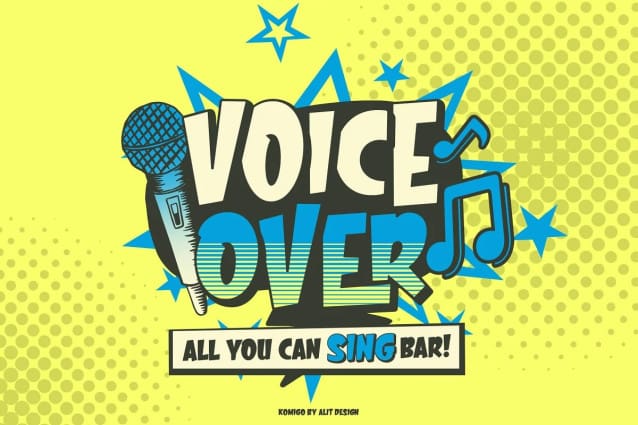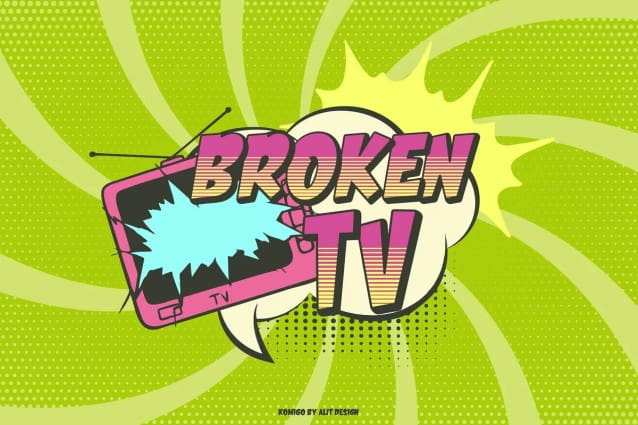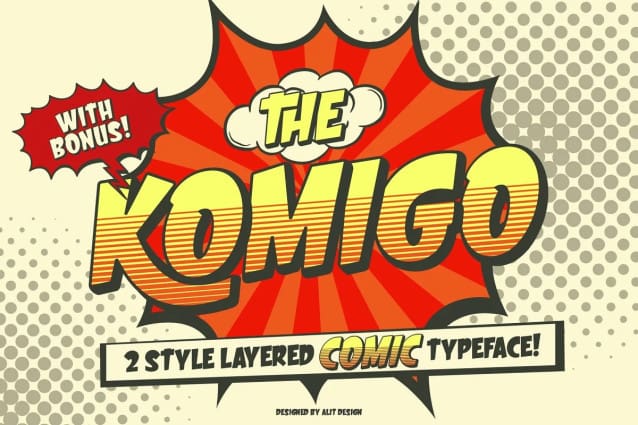
Komigo Comic Font
Komigo Comic Font, is inspired by the style of letters in comics that have less serious and fun characters. The lettering of Komigo Layered Comic Typeface is a sans serif with display font characters which gives a fun and design impression for children. The Komigo Layered Comic Typeface has 2 style font regular and italic style and has 3 characters solid, line and shadow. The Komigo Layered Comic Typeface is perfect for creating designs with non-serious concepts, designs for children, book headers, and of course for text on comics.
The Komigo Layered Comic Typeface also gets a bonus character of 230 Comic-themed illustrations that make creating designs even easier. Simply by downloading The Komigo Layered Comic Typeface creating a Comic and non formal themed design is very quick and easy.
The Komigo Layered Comic Typeface is perfect for magazine cover designs, brochures, flyers. Instagram ads, Canva Design and so on with comic, non-serious, pop art, game mobile and fun design. Besides that this font is very easy to use both in design and non-design programs because everything changes and glyphs are supported by Unicode (PUA).
The Komigo Layered Comic Typeface contains 534 + 230 bonus glyphs with many unique and interesting alternative options.